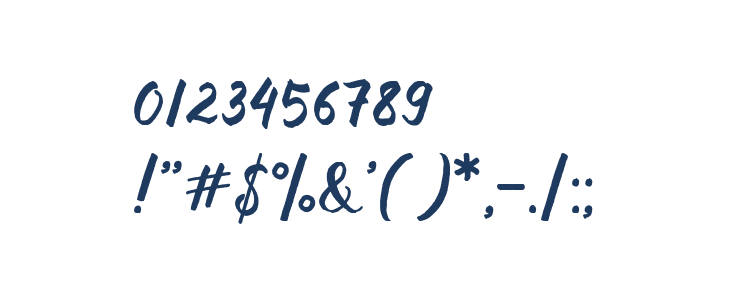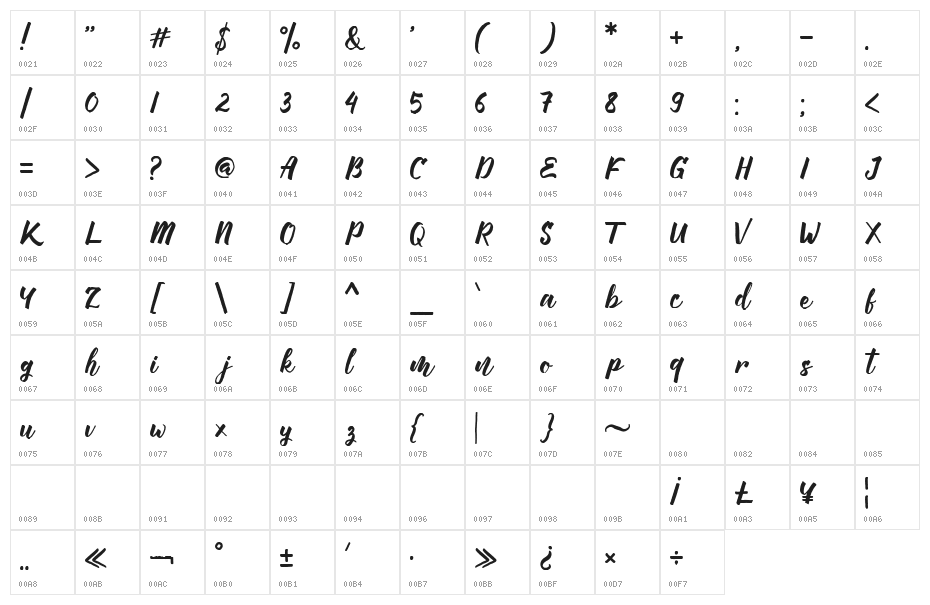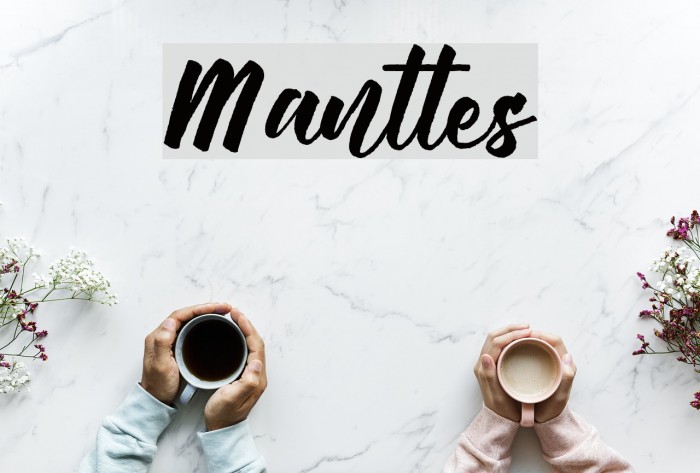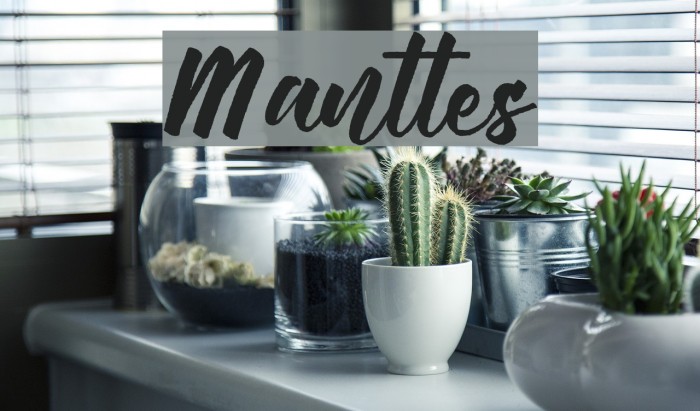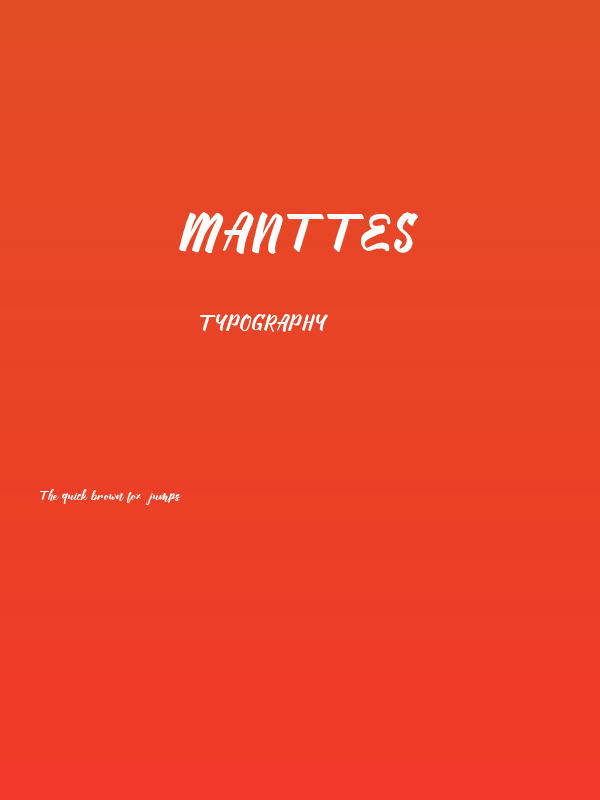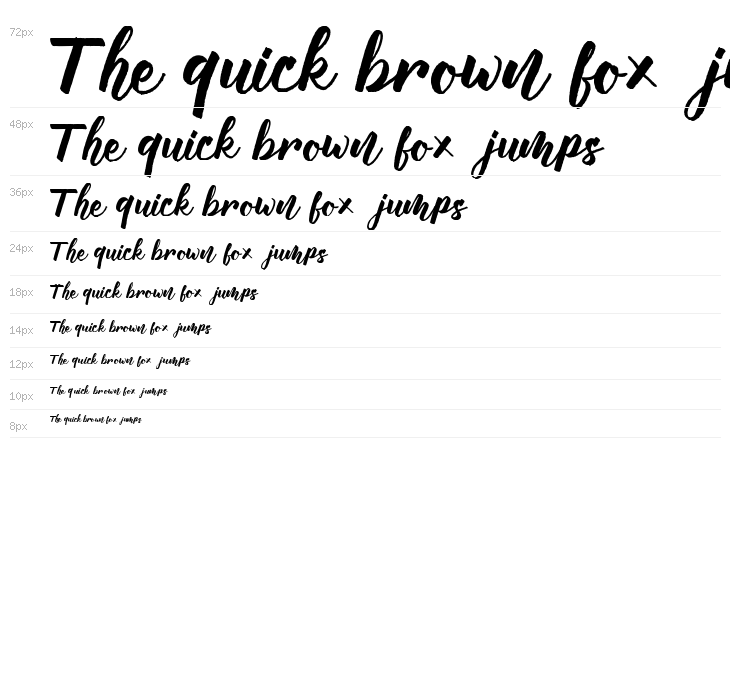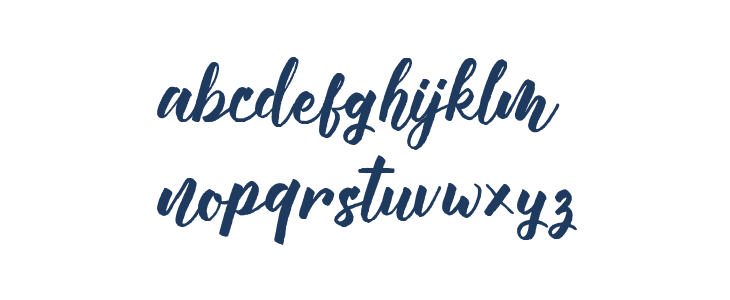
Manttes Font
Manttes Description
This font exhibits a bold and expressive handwritten style, characterized by its fluid and dynamic strokes. The uppercase letters are slightly slanted, giving a sense of movement and energy, while the lowercase letters maintain a consistent flow with smooth curves and loops. The numbers are equally bold, matching the overall aesthetic of the alphabet. Special characters are creatively integrated, maintaining the font's playful and artistic nature. This font is perfect for projects that require a personal touch, such as invitations, greeting cards, or branding materials that aim to convey warmth and creativity.
| Proposed Projects | Ideal for invitations, greeting cards, branding, and creative projects requiring a personal touch. |